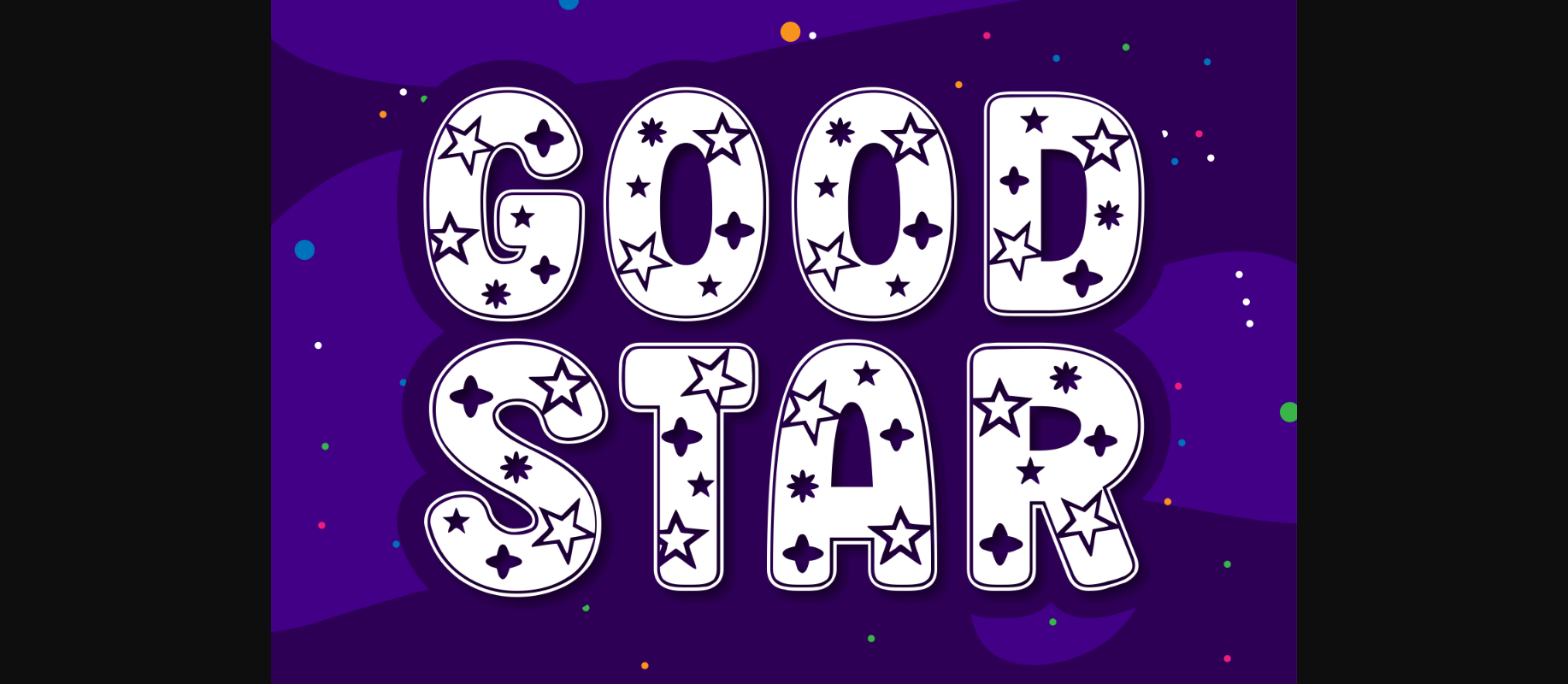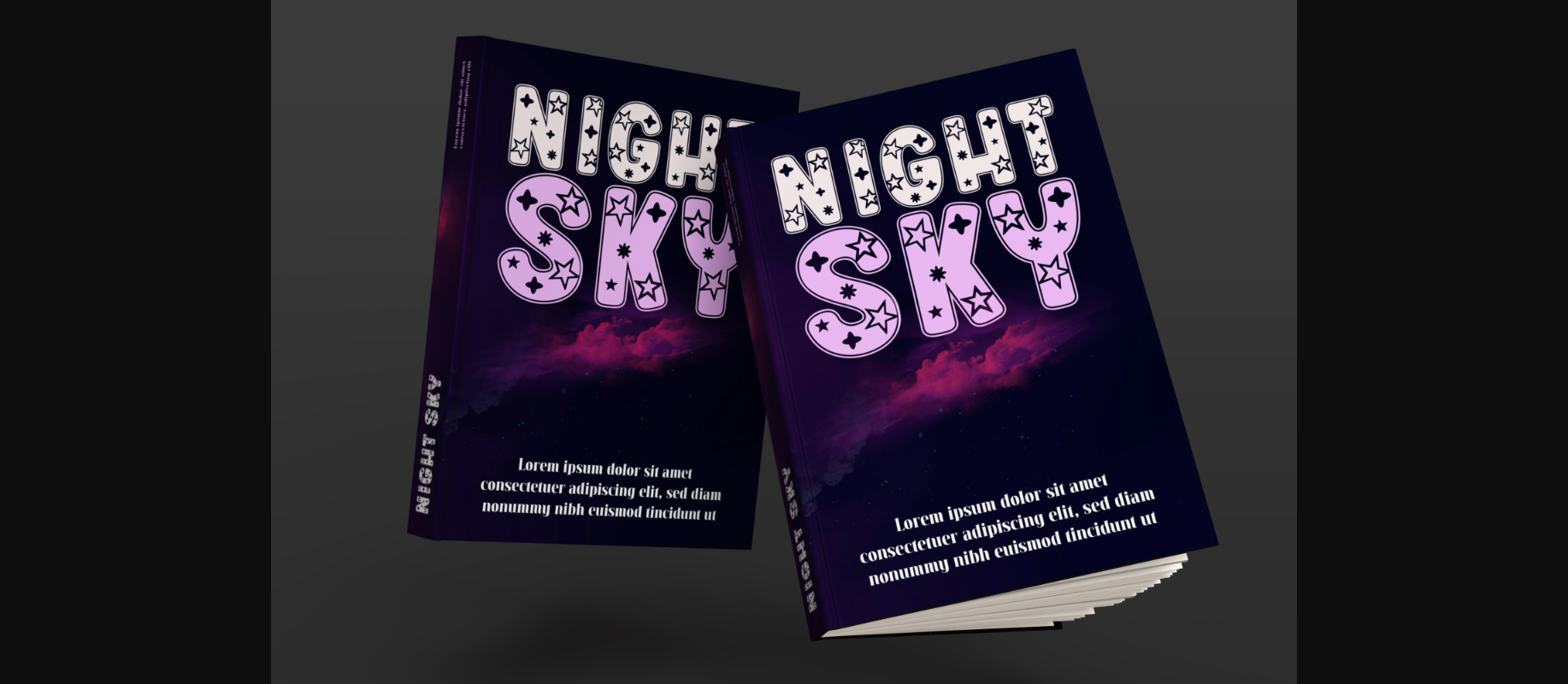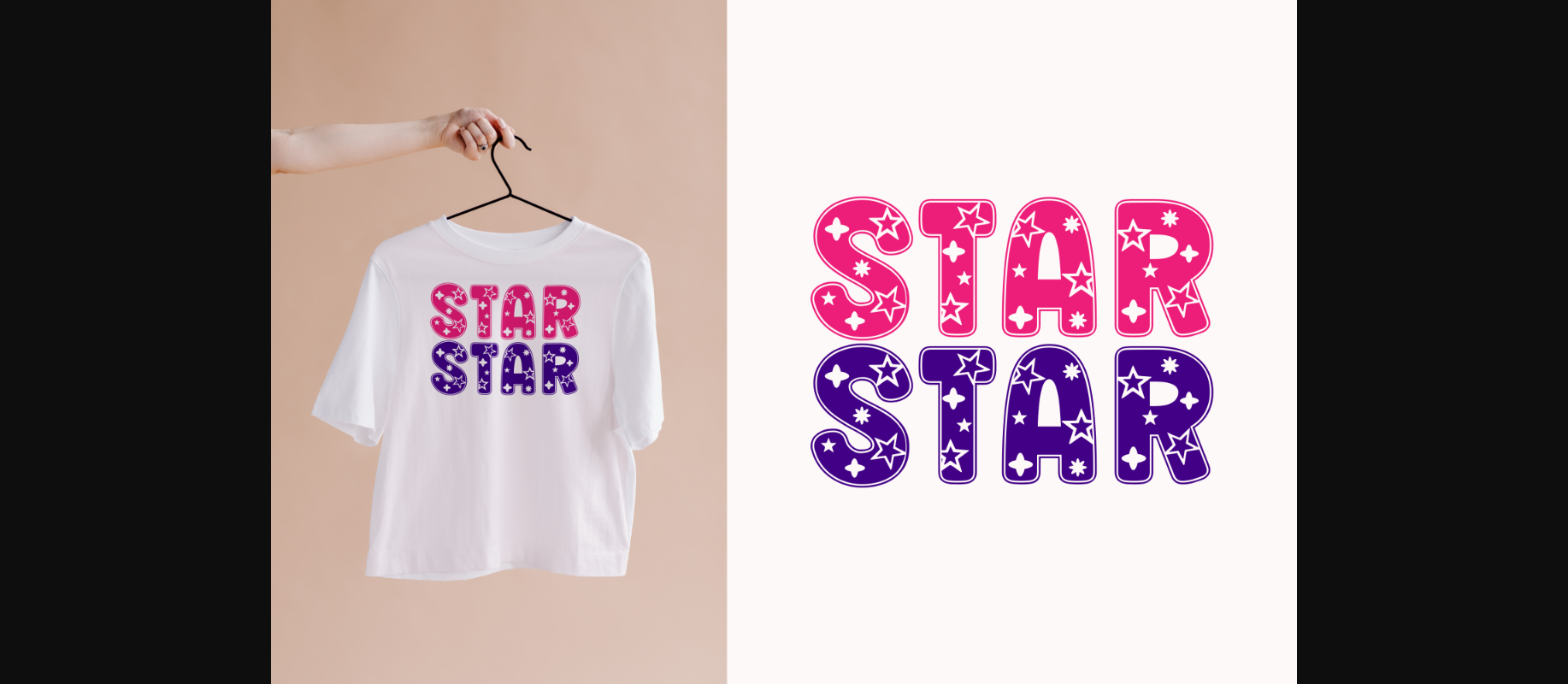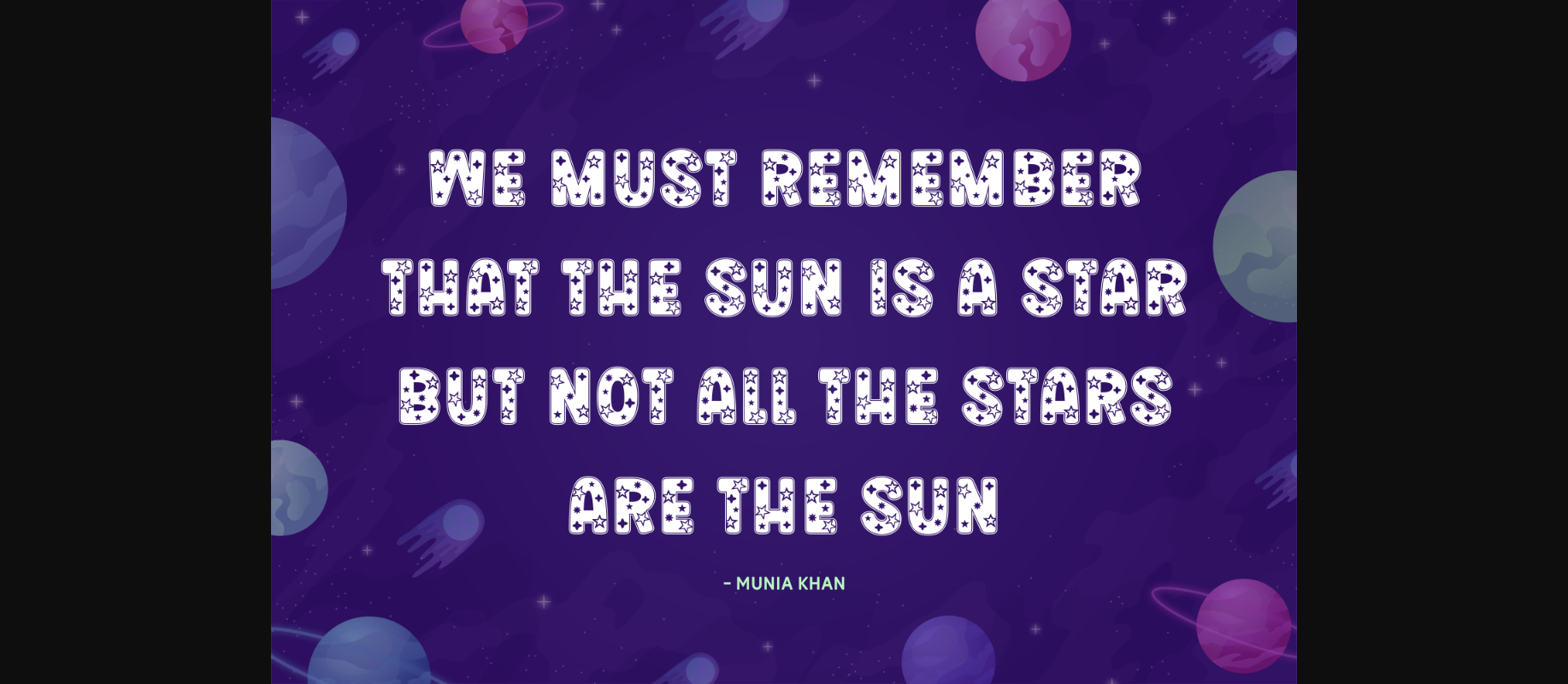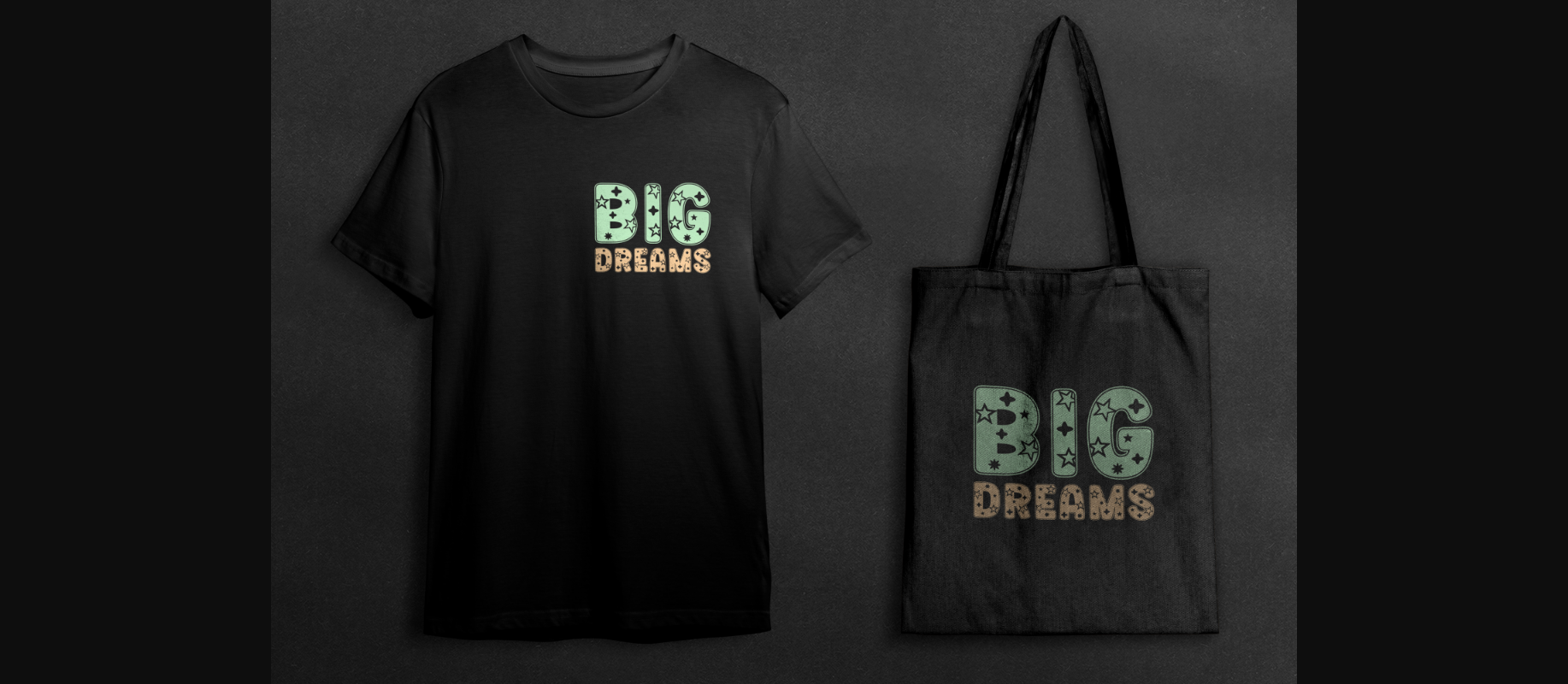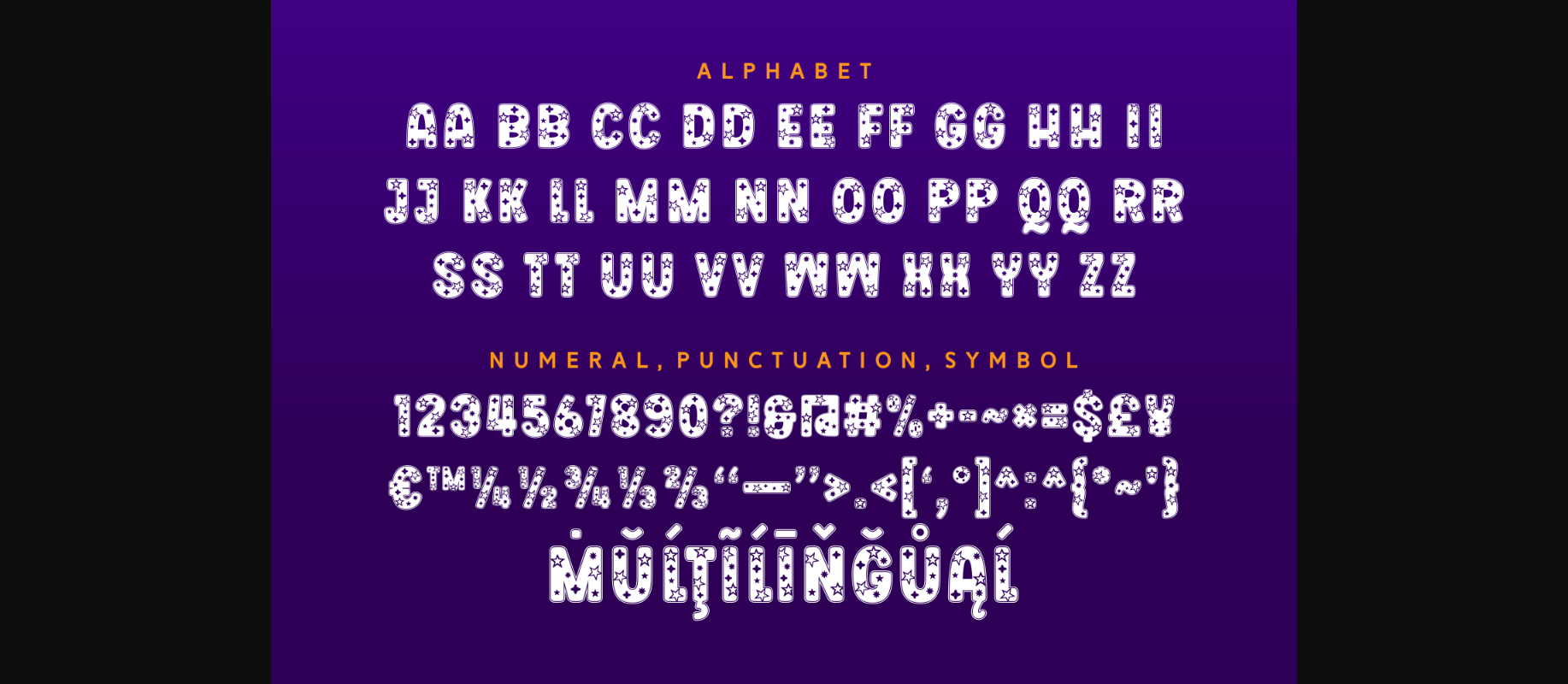
About Good Star Font
Good Star is a cute and dazzling decorative font. It features adorable star details in various shapes to help you create outstanding typography. Use it to bring life to posters, fabric prints, children’s books, covers, and many more.